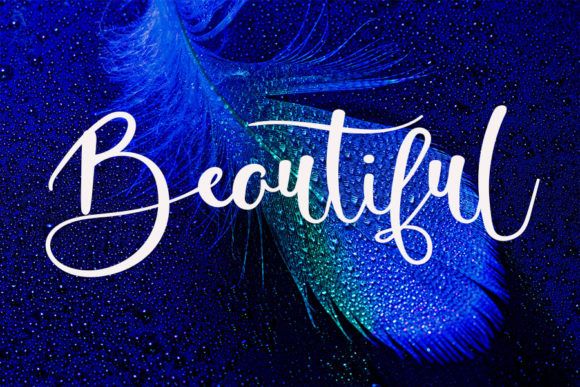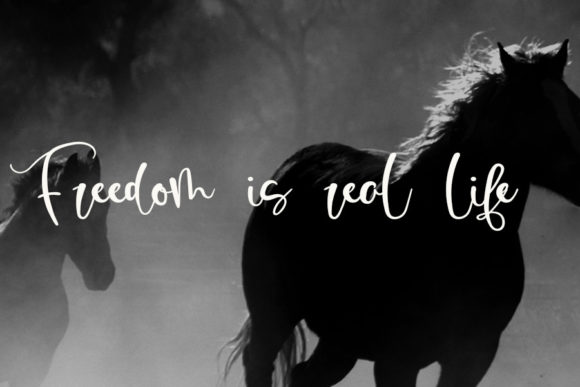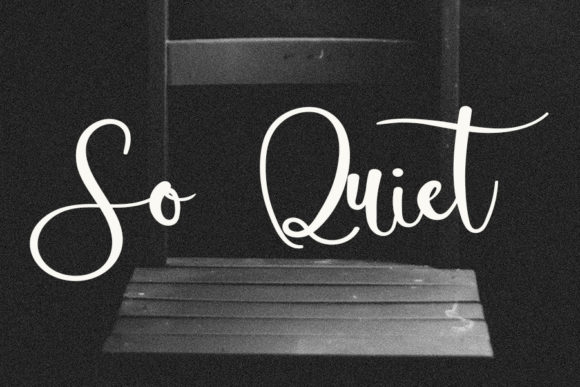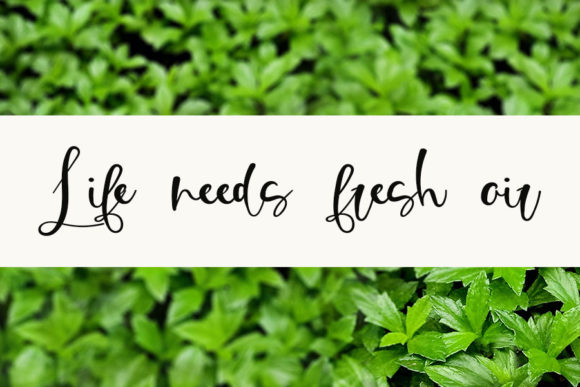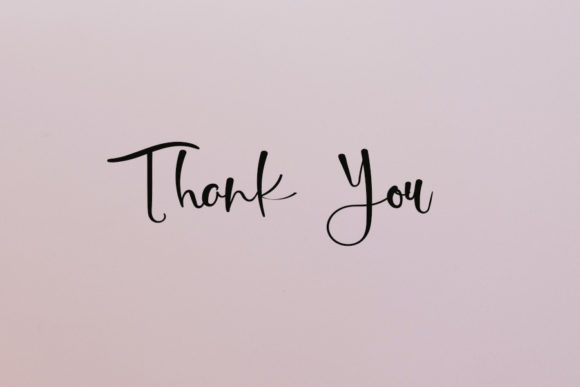
Introduction to Enjoy Nature Font
As you sit in your cozy studio, surrounded by half-finished designs and scattered sheets of paper, you stumble upon that perfect combination of words and images. It’s a moment of creative serendipity, and you know exactly which font to use to make it shine – the Enjoy Nature Font. This stunning, casual handwritten font is more than just a design resource; it’s a game-changer for any creative project.
With its classy calligraphic influences and fresh, contemporary feel, the Enjoy Nature Font is sure to elevate your designs to new heights. Whether you’re working on a high-quality brochure, a free download for your website, or a standalone poster, this font is the perfect addition to bring your vision to life. Its transparent background and versatility make it an ideal choice for designers looking to add a personal touch to their work.
Key Features of Enjoy Nature Font
- Unique, hand-drawn design with a transparent background
- Perfect for use in digital and print media, including logos, signage, and advertising
Honest Review: Enjoy Nature Font
I recently had the chance to work with the Enjoy Nature Font, and I must say it’s been a delightful experience. As a designer, I’m always on the lookout for high-quality design resources that can elevate my creative project. This font fits the bill perfectly!
What works well: ✨ The Enjoy Nature Font has a unique, natural feel to it that instantly transports me to the great outdoors. The varied line weights and letterforms make it perfect for creating visually appealing headings and titles. I also appreciate the transparent background, which allows me to easily combine it with other design elements.
Overall, I’m impressed with the Enjoy Nature Font. Its unique design and high-quality aesthetic make it a valuable addition to any designer’s toolkit. With a little creativity, it’s easy to see how this font can be used in a wide range of creative projects.
Pros:
- Unique and natural design
- High-quality aesthetic
Cons:
- May be too limited for corporate or formal designs
How to Use Enjoy Nature Font
The Enjoy Nature Font is a high-quality design resource that can elevate your creative project with its unique and natural style. This font is perfect for designers who want to add a touch of the outdoors to their work.
Getting the Most Out of the Font
To get the most out of the Enjoy Nature Font, try using it with a transparent background to really make the text stand out. You can also experiment with different font sizes and colors to create a unique look.
The Enjoy Nature Font is perfect for designers who work on projects related to the outdoors, such as:
- Environmental campaigns
- Nature-inspired product designs
- Outdoor adventure websites
Alternatives to Enjoy Nature Font
The Great Vibes Font is a high-quality, elegant script font that is perfect for creative projects such as wedding invitations, quotes, and posters. It has a transparent background, making it ideal for overlaying on images or backgrounds. Great Vibes Font is a great alternative to Enjoy Nature Font for designers who want a more sophisticated and refined look.
The Pacifico Font is a beautiful, modern script font that is perfect for design projects that require a touch of elegance and sophistication. It has a high-quality design and is available for free download, making it a great option for designers on a budget. Pacifico Font is a great alternative to Enjoy Nature Font for designers who want a more minimalist and modern look.